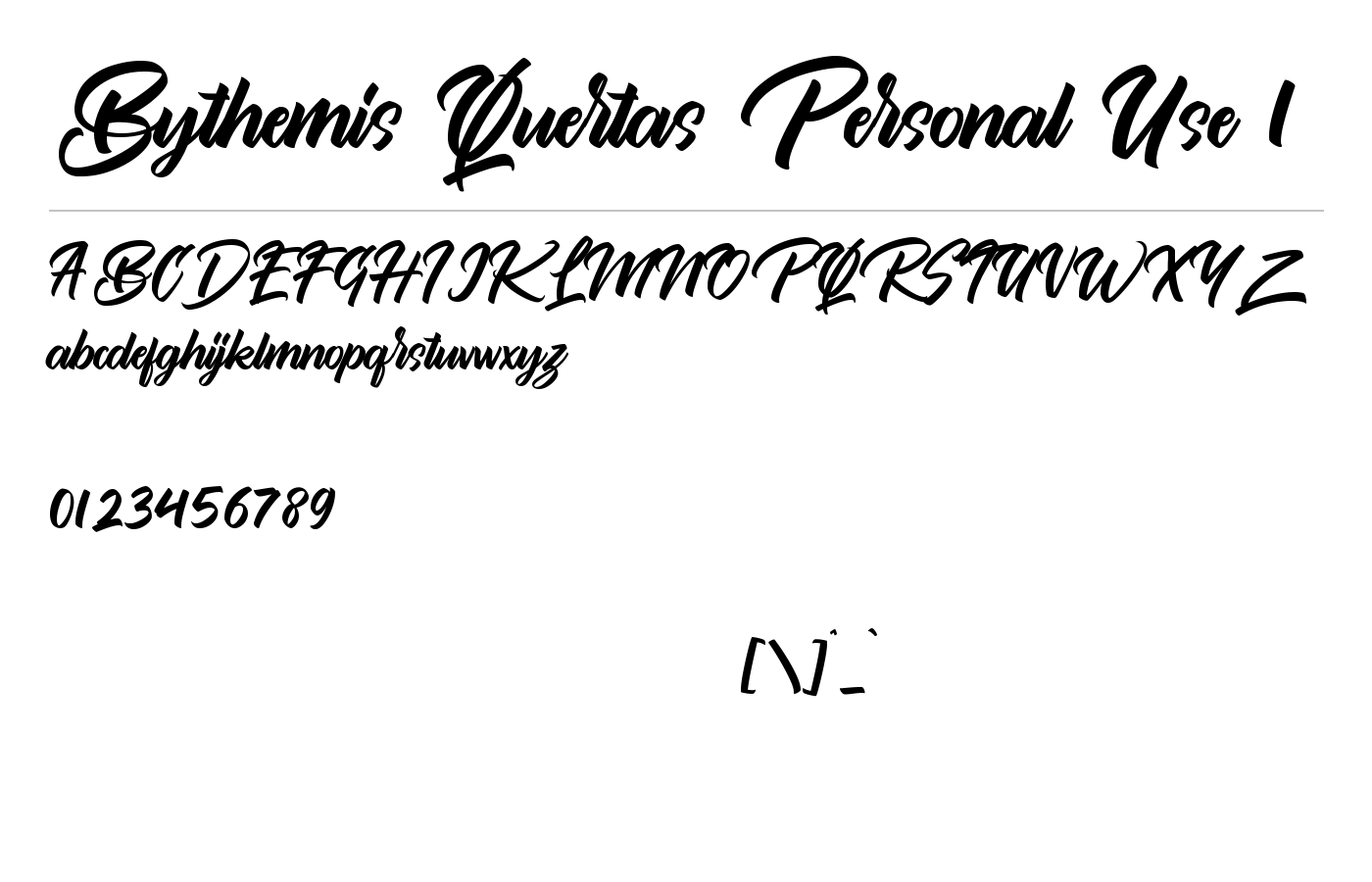
Bythemis Quertas Personal Use 1 is an elegant script font featuring smooth, flowing strokes with a casual yet refined brush style. Its medium weight and slightly condensed letterforms create a stylish, dynamic appearance perfect for branding, invitations, and creative headlines where a personal, handcrafted touch is desired. This font works well in projects aiming for a modern, artistic vibe with a hint of sophistication and warmth.
Bythemis Quertas Personal Use 1 Font
About Bythemis Quertas Personal Use 1 Font
| Designer | Vava Aryanto |